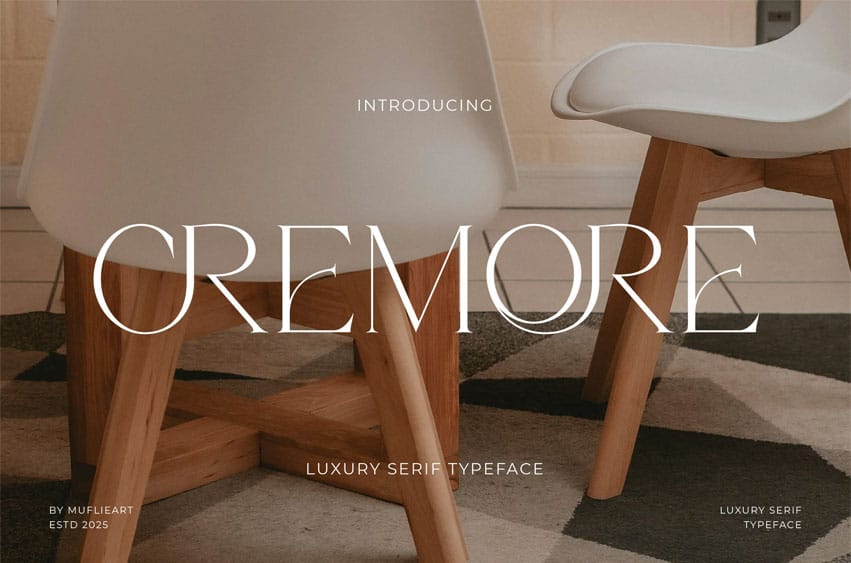
Cremore Font Modern Classy Luxury font, created specifically for luxury and fashion branding needs. It features unique alternate characters, ready to enhance your brand’s value. It’s perfect for designers or product owners looking for a solution to make their designs look more classy and modern. Specifically for this font, we’ve prepared a variety of alternate characters to help you create unlimited variations for your creative needs.
- Uppercase and lowercase letters
- Multilingual Characters
- Numbers & punctuation
- Alternative styles and ligatures (on some fonts)